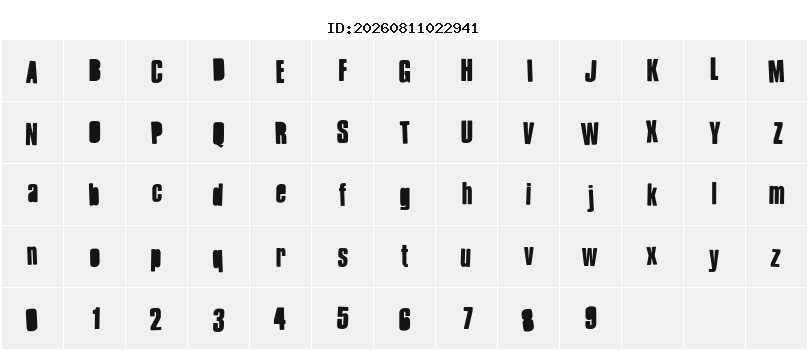
About RubOn.ttf
RubOn.ttf is a modern, elegant sans-serif font designed for ultimate readability and visual harmony. Perfect for branding, headlines, web design, and print materials.